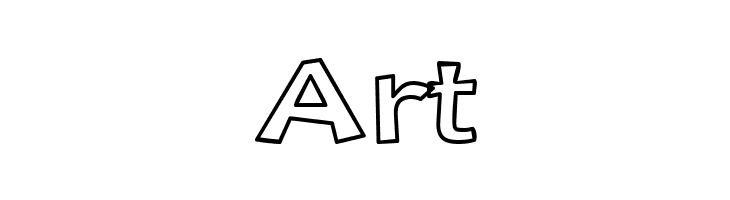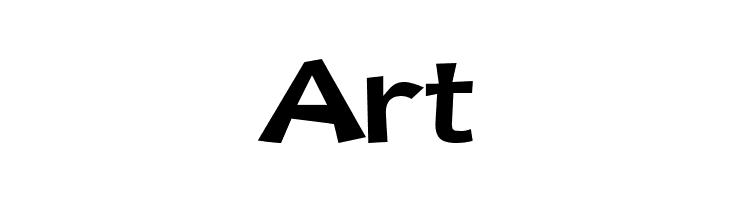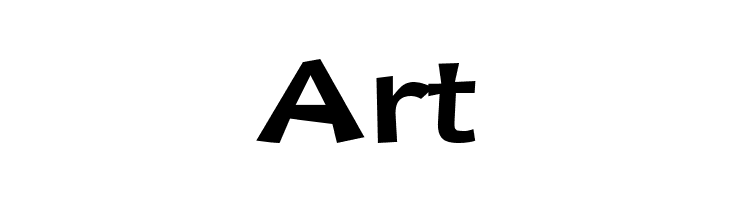
Snott 2000 Bold Font
Font by Graham Meade - GemFonts
A bold, playful font with a quirky, modern style.
Snott Bold Font
A bold, modern font with thick strokes and strong presence.
Snott SemiBold Font
A bold, playful font with dynamic and slightly slanted letterforms.
Snott Outline Font
A bold, outlined font with a modern and geometric style.